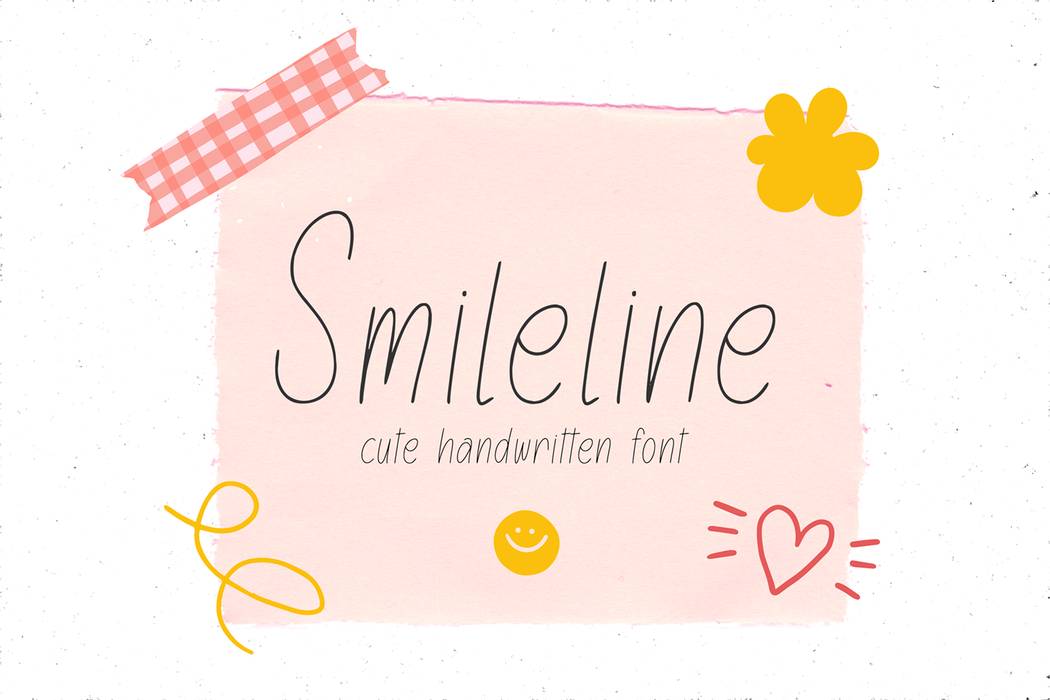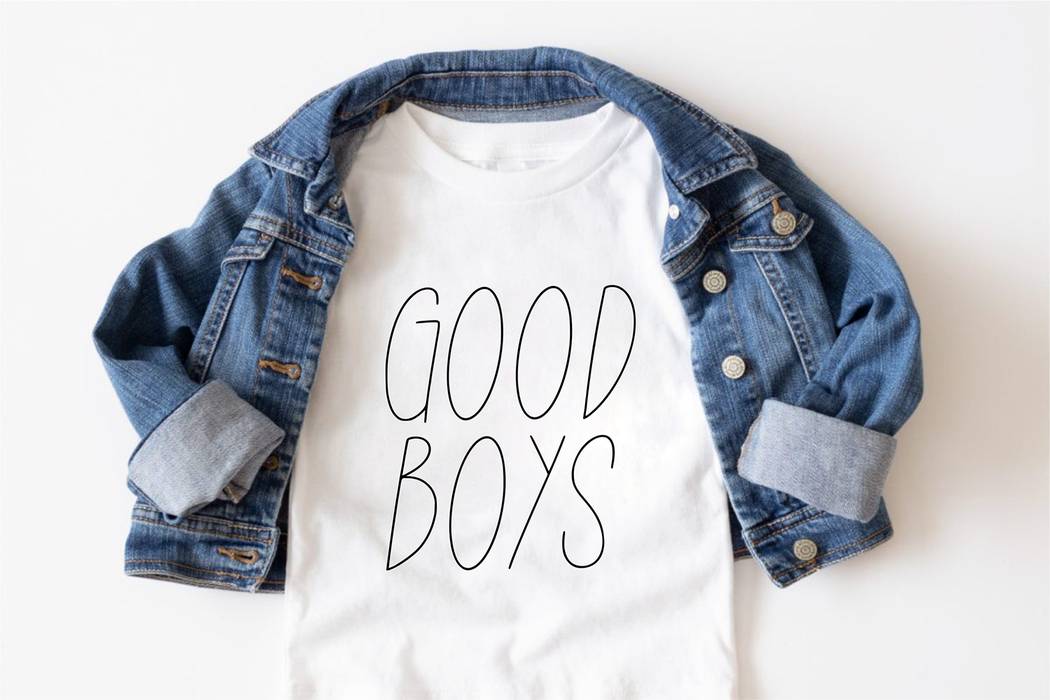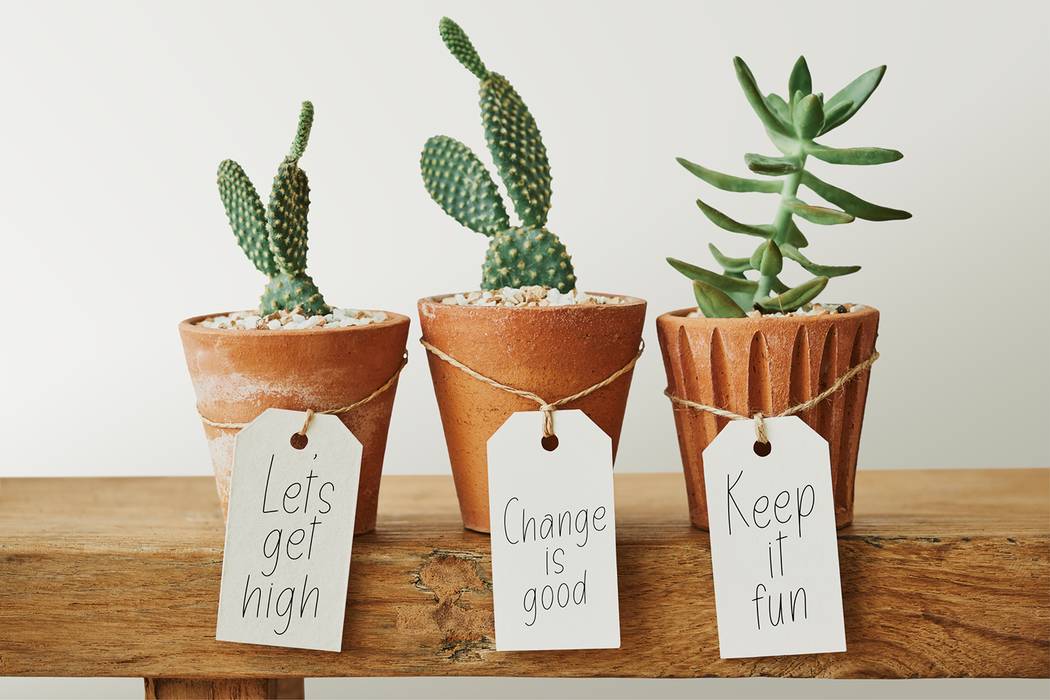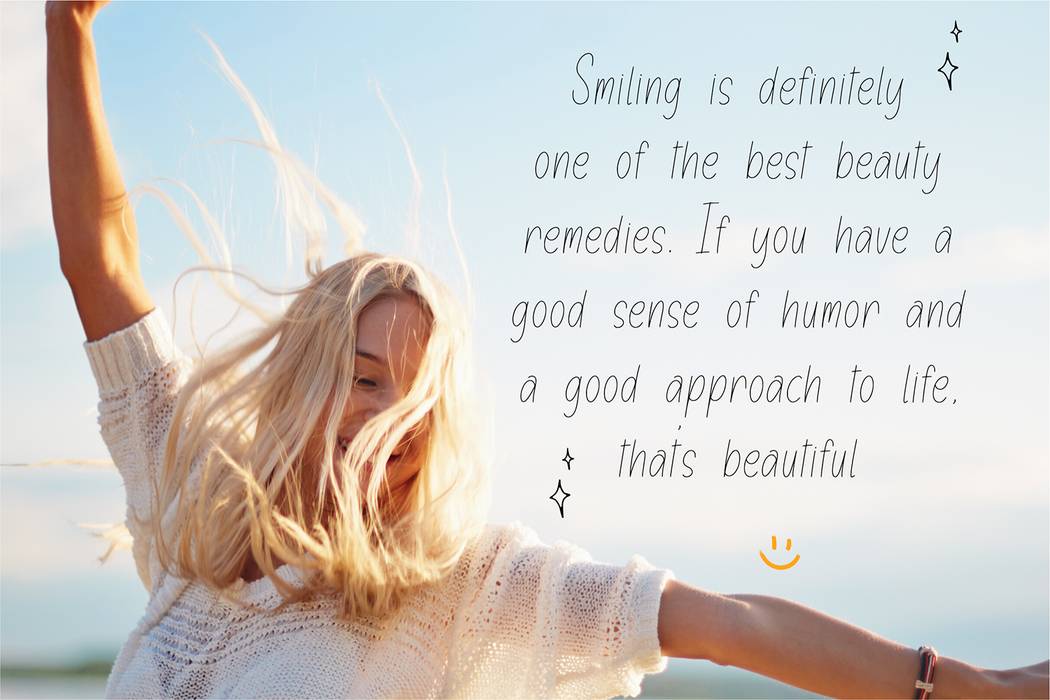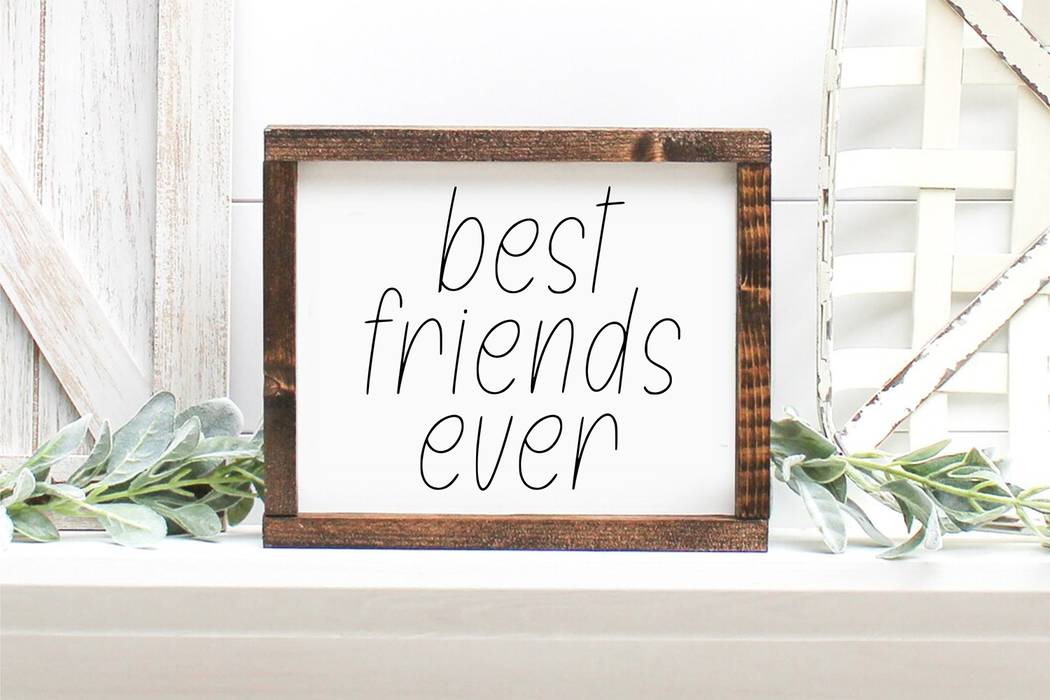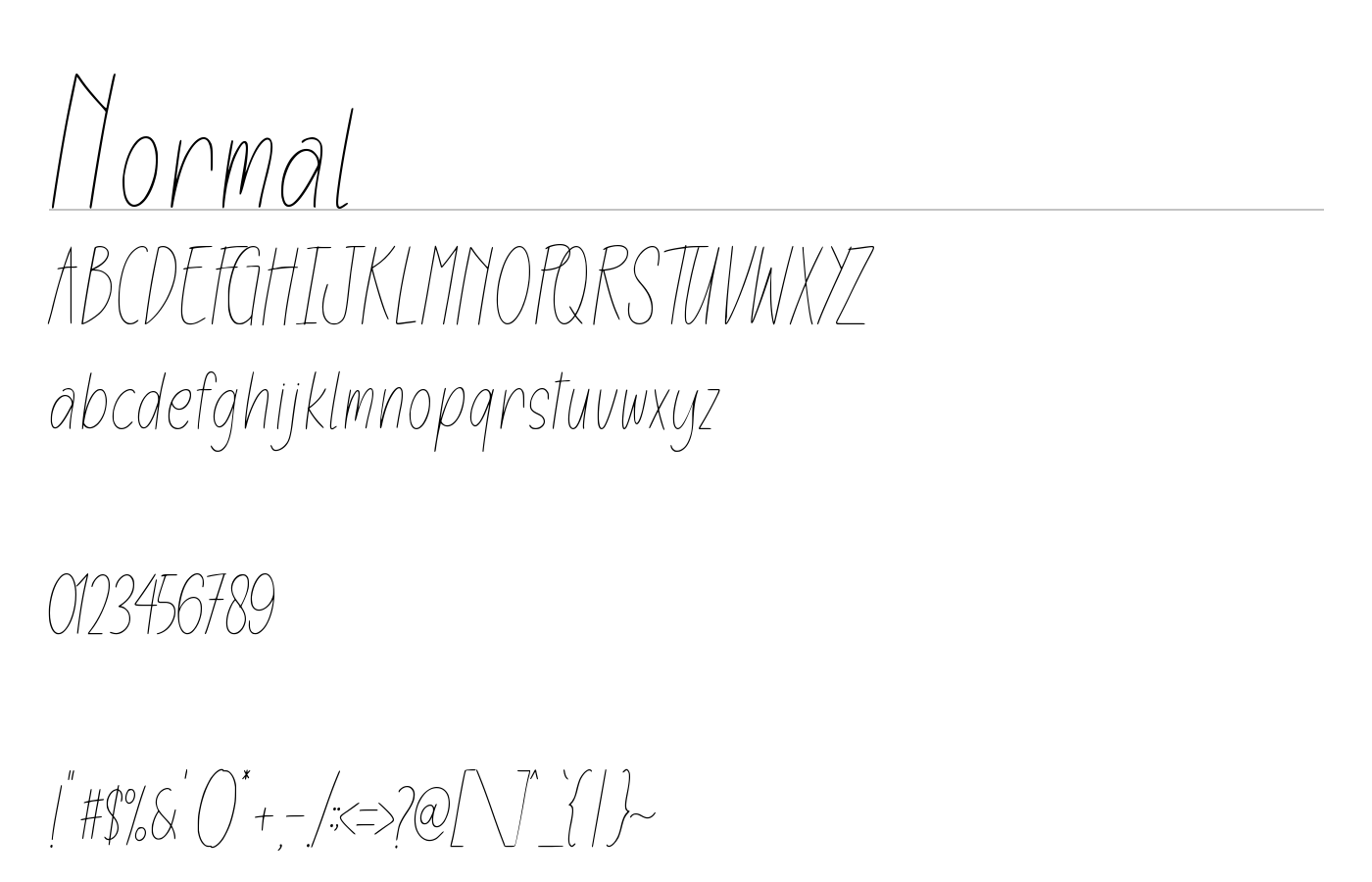
Smileline is a delicate, narrow sans serif font with a playful, handwritten feel, characterized by its tall, thin letterforms and subtle quirky curves. Its light weight and airy spacing make it ideal for adding a touch of elegance and personality to creative projects, headlines, or invitations where a whimsical yet refined style is desired. This font works well for brands and designs looking to convey friendliness and uniqueness with a minimalist flair.
Smileline Font
About Smileline Font